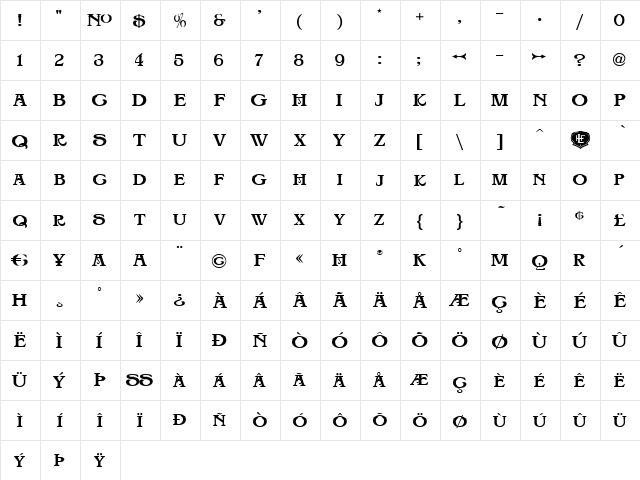
LHF Big Top REG Regular
Design Context for LHF Big Top REG Typeface
LHF Big Top REG is a composed and adaptable typeface that performs quietly and consistently across a wide range of design contexts.
Pro Tip: Use LHF Big Top REG in both headline and body roles to test its range before committing to a single application.